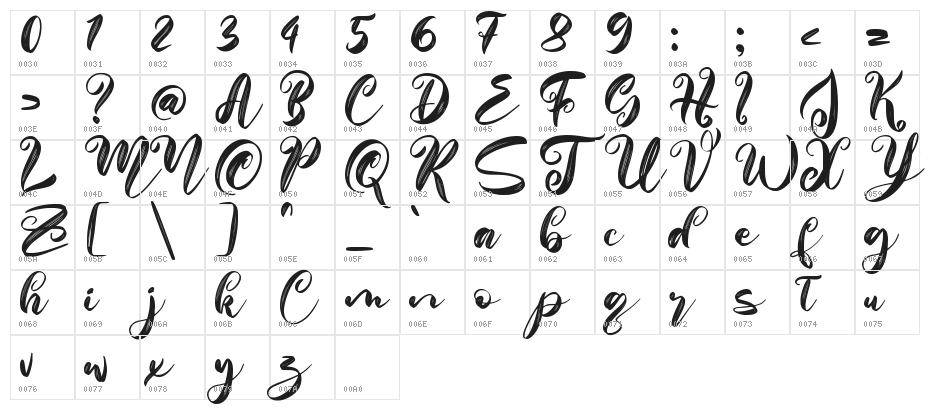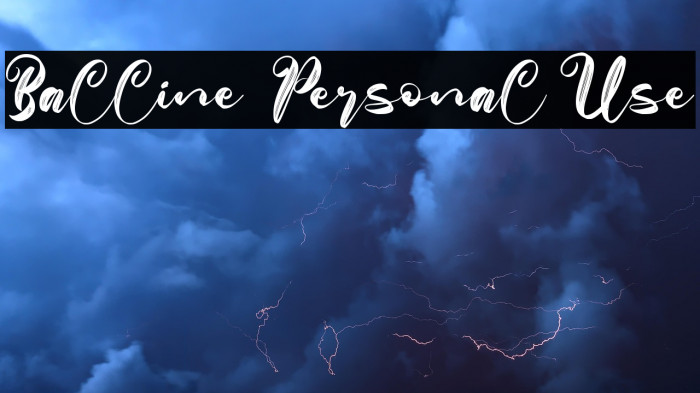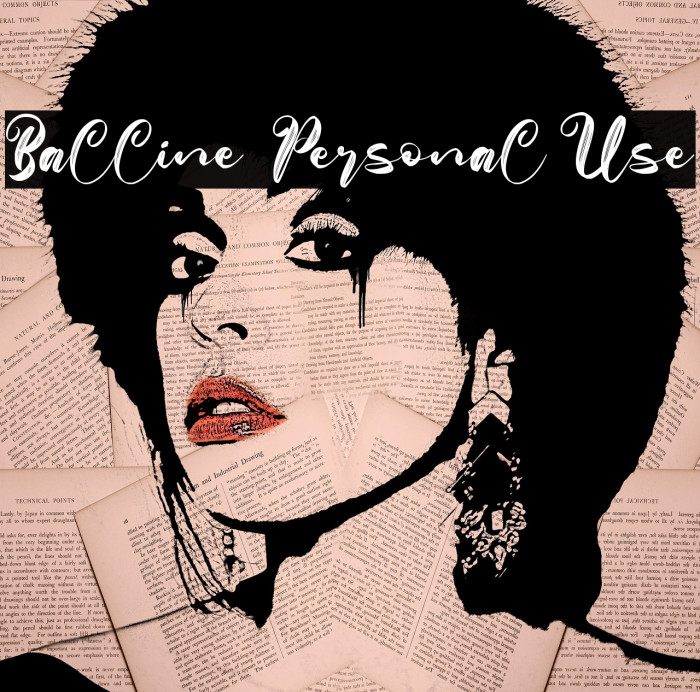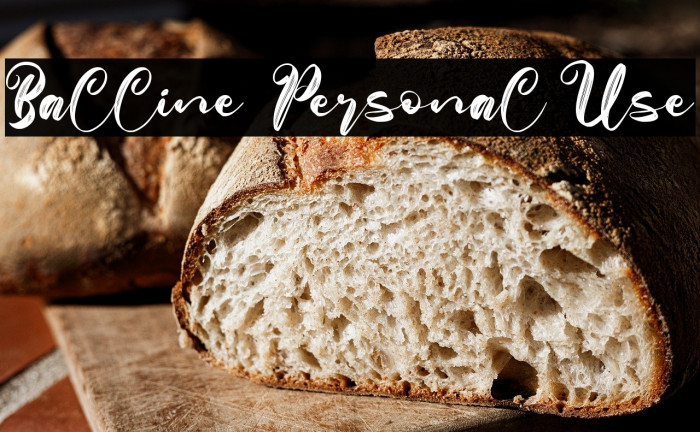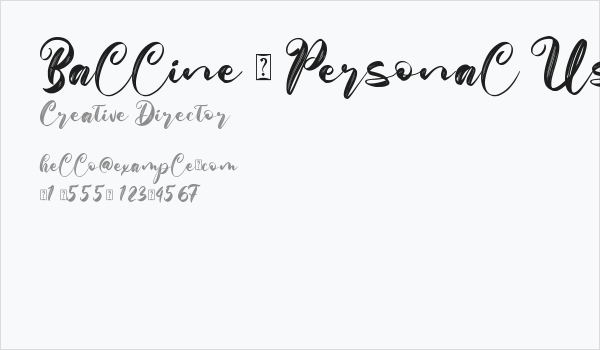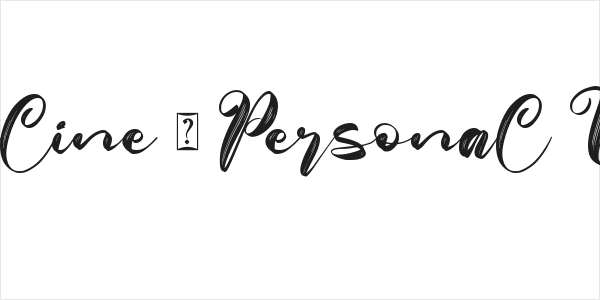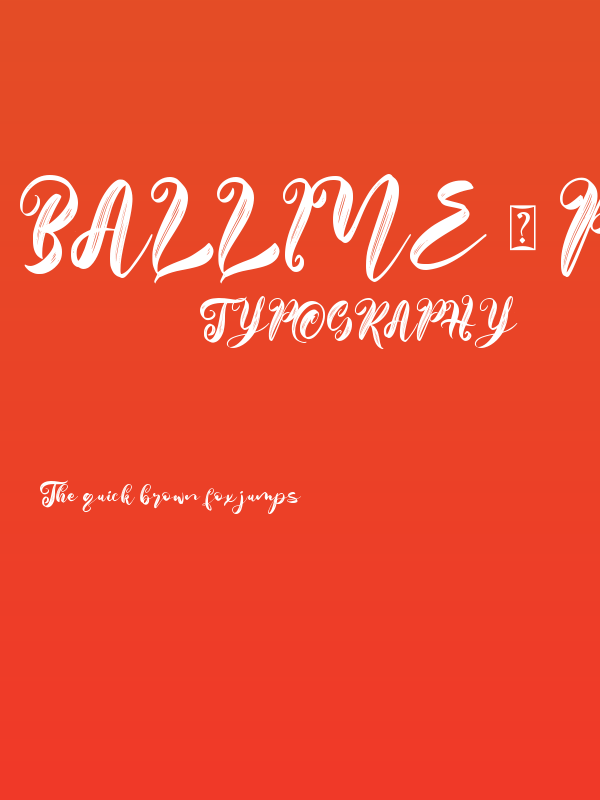
Balline - Personal Use Font
Balline - Personal Use Description
This font features an elegant, flowing script style with a modern twist. The characters are intricately designed with a combination of thick and thin strokes, giving it a dynamic and expressive appearance. The uppercase letters are bold and sweeping, while the lowercase letters maintain a graceful, cursive flow. Numbers and special characters are crafted with the same attention to detail, ensuring a cohesive look across all glyphs. The font's artistic flair makes it ideal for creative projects that require a touch of sophistication and personality.